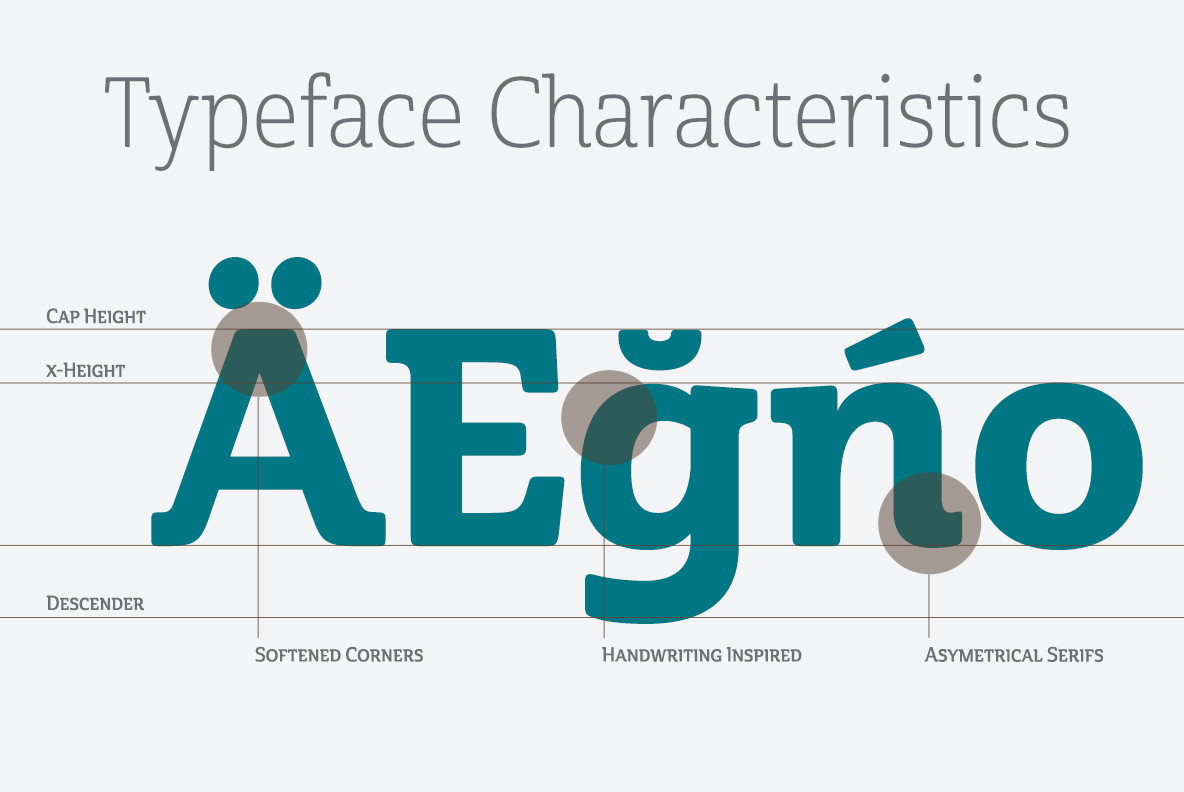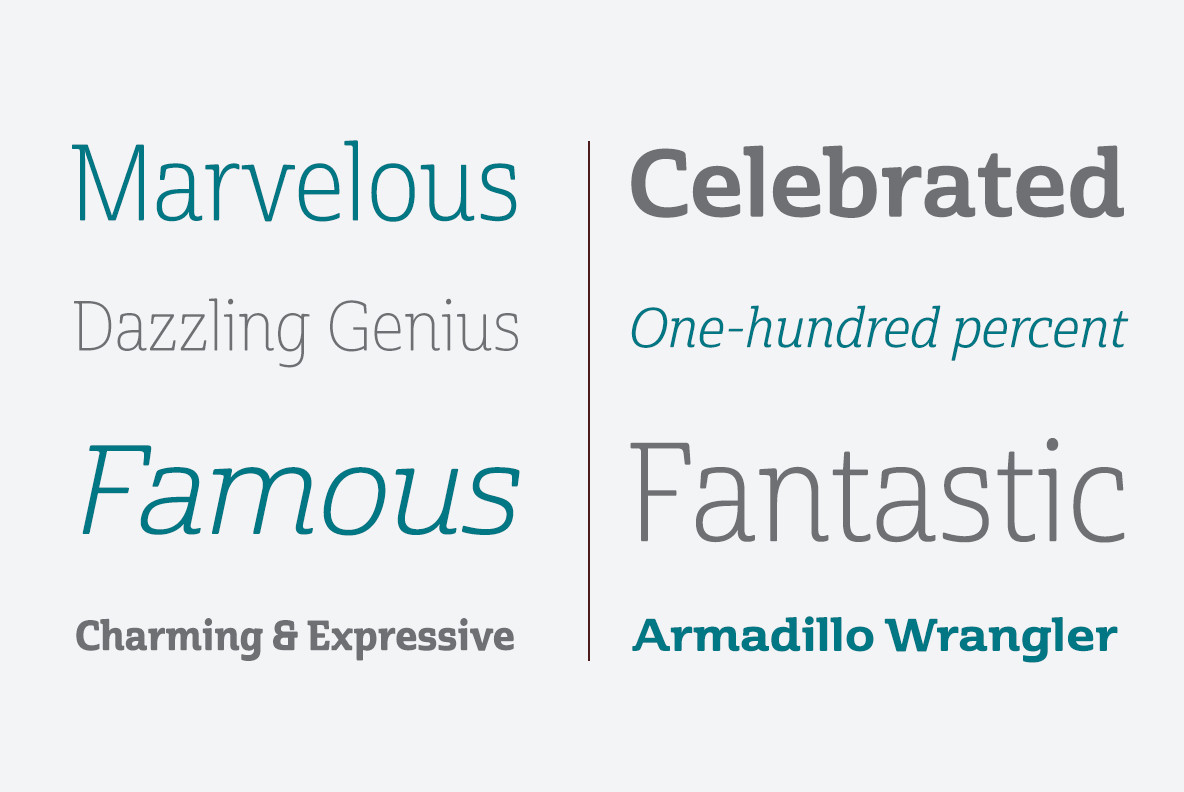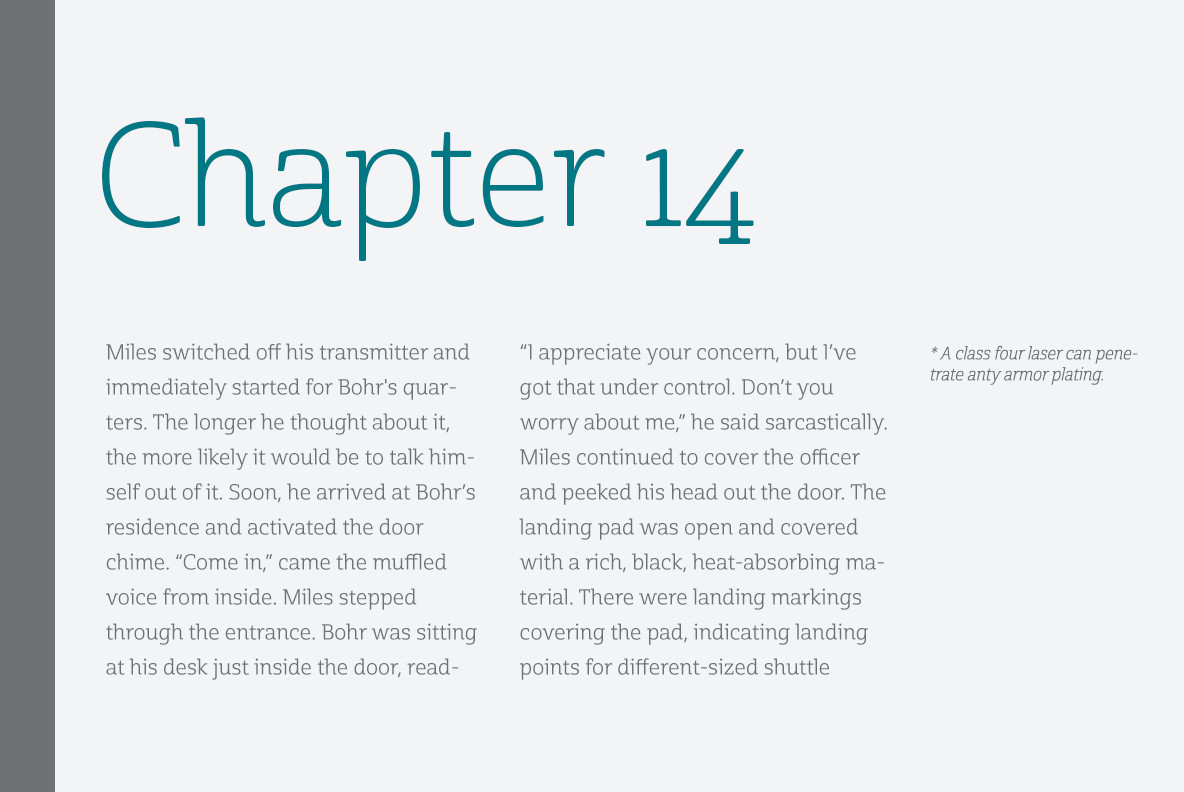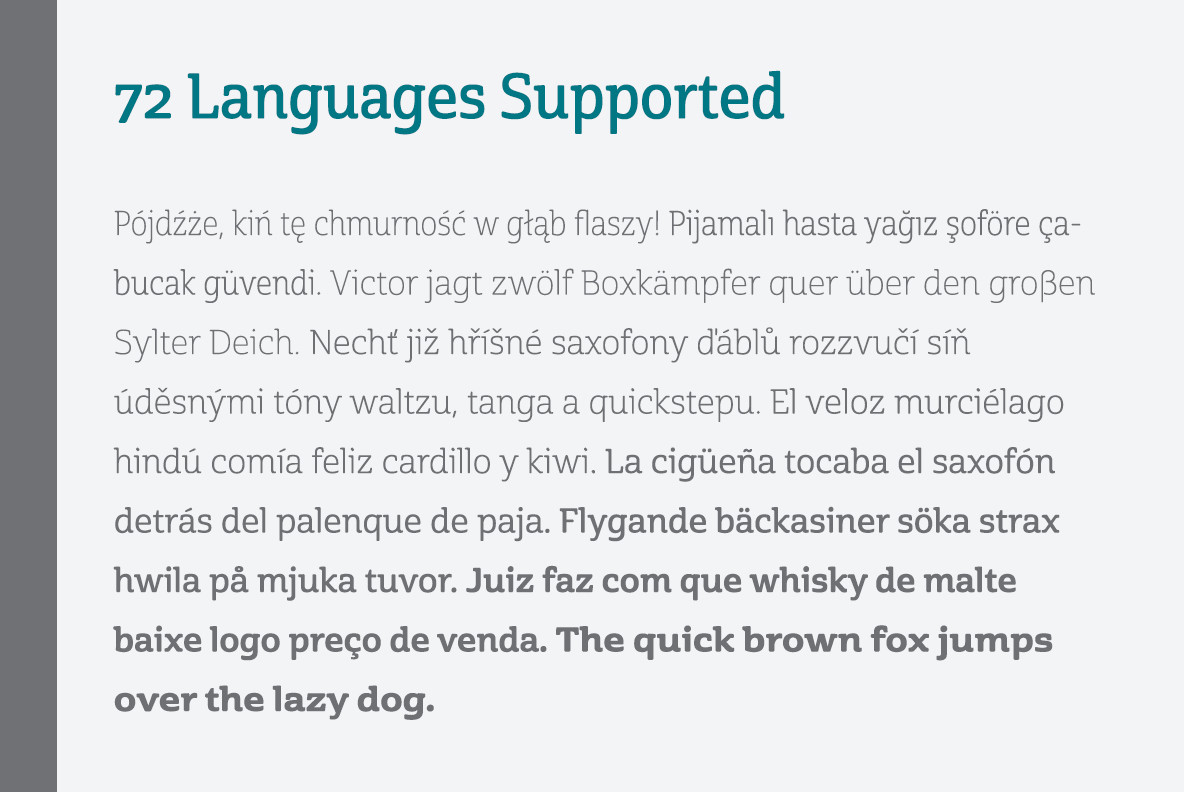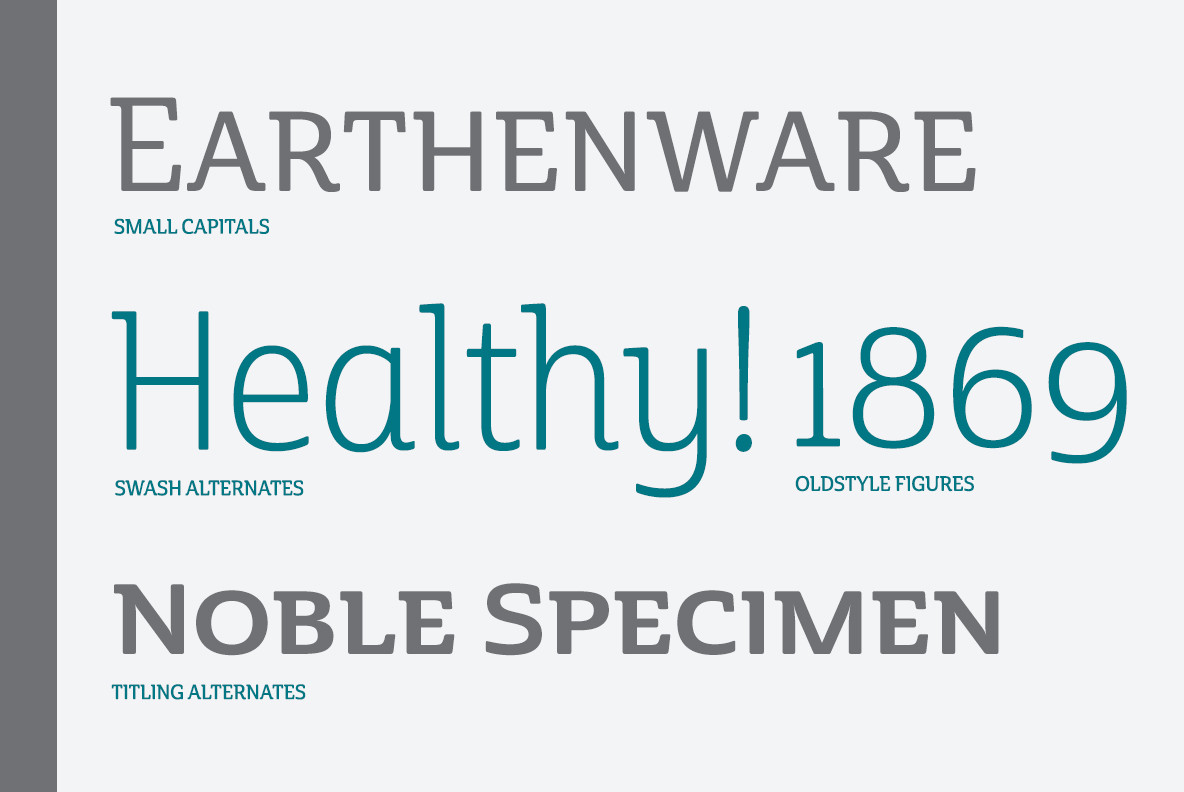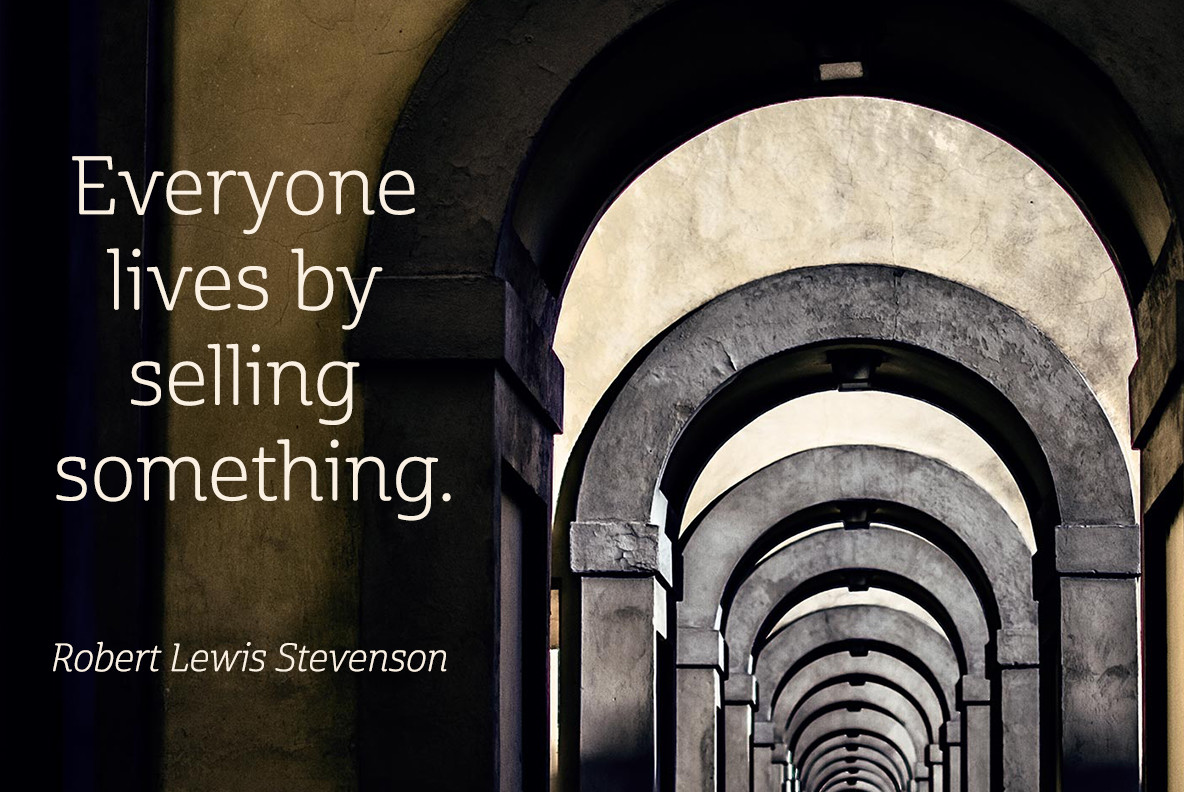
Cabrito Semi Font
Relax. Deep breath. And step away to font nirvana with Cabrito Semi. Like its Cabrito relatives, Semi’s handwriting-inspired feel is mellow and care-free. But don’t misunderstand us. Even with its fun-loving peculiarities, this free spirit will command whatever party you invite it to. It’s a perfect blend of unique and functional.
So what’s the secret of this little one’s strength? It’s pure balance. Cabrito Semi’s energy surges from deep within the relaxed, balanced tones of its humanist structure and calligraphic crafting.
The 36 fonts of this well-crafted semi serif originate from the popular Cabrito, an insigne design slab serif developed for the kid’s book, The Clothes Letters Wear. Along with its other amigos, Inverto and Sans, Cabrito Semi rounds out this easy-going household of fonts. The four fonts play well together on anything from meals and candy to toys and cars. With the support of the other three, Semi makes a great choice for titles and moderately long text like you would use for websites, flyers, and packaging.
Semi’s complete pack of alternates is accessible in any OpenType-enabled system. This kiddo has loads of alternates, swashes, and alternate titling caps to add a bit of sweetener to the balance. Also bundled are swash alternates, old style figures, and compact caps. Preview any and all of these features in the interactive PDF brochure. This font members of the family also consists of your glyphs for 72 languages.
So who says you can’t love quirky? Take a look at Cabrito Semi--and any of the other members of the Cabrito family. You’re bound to find yourself loving fun all over again.